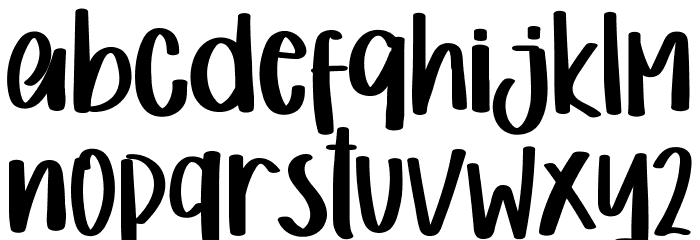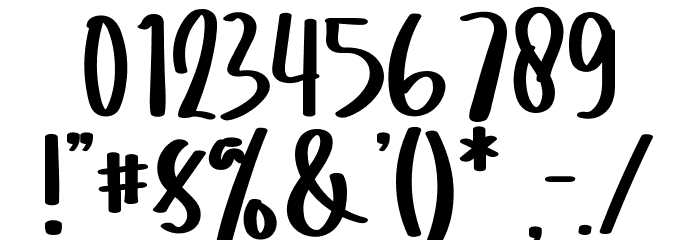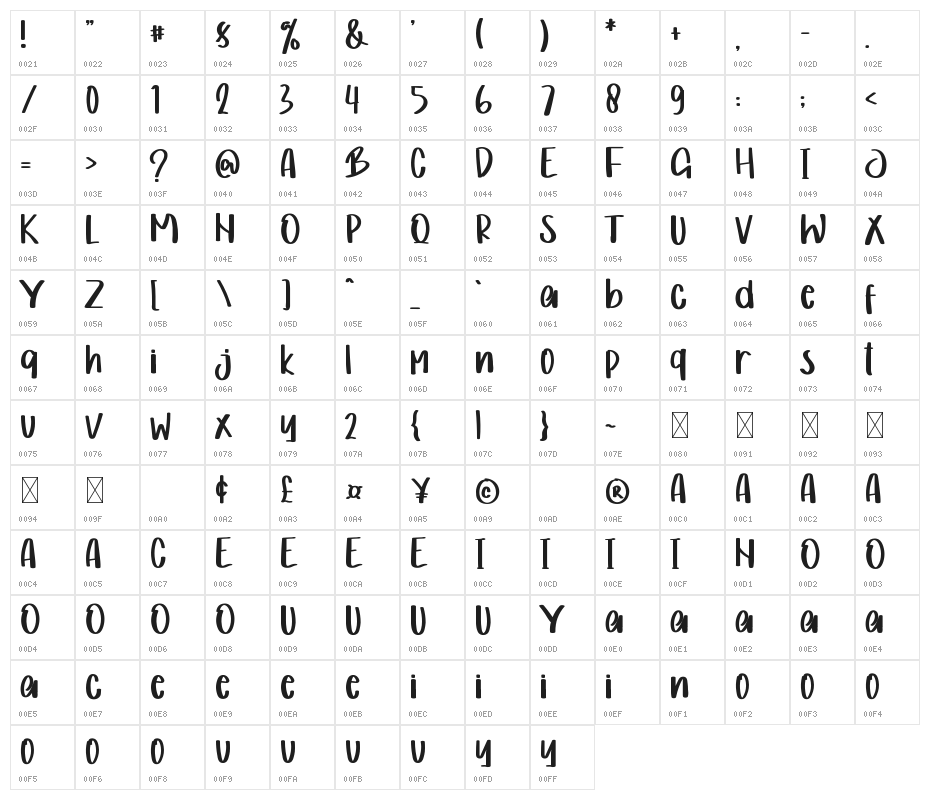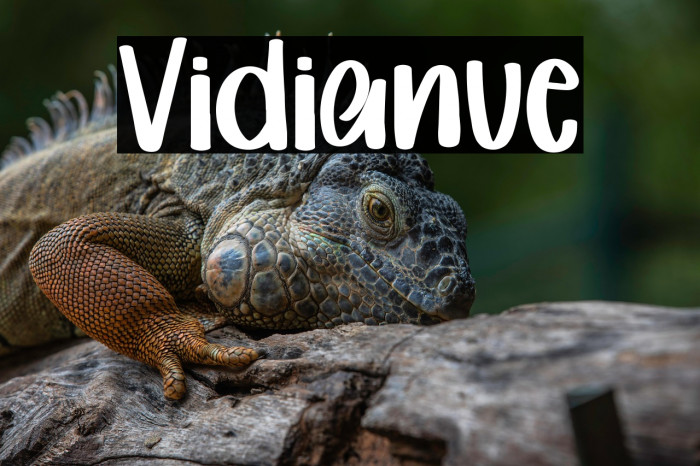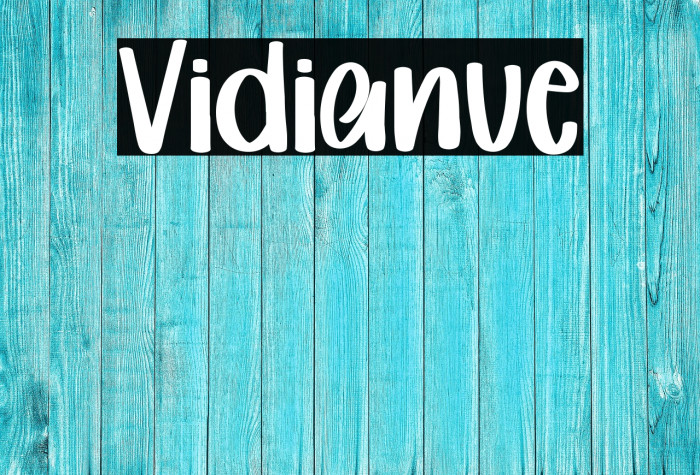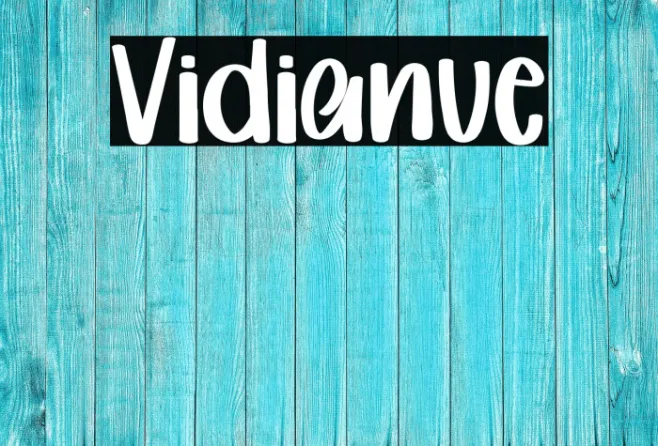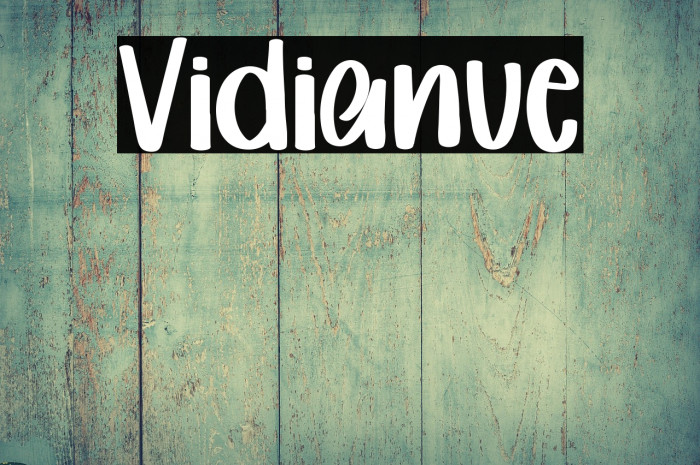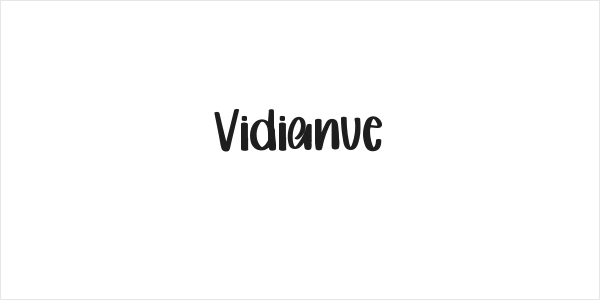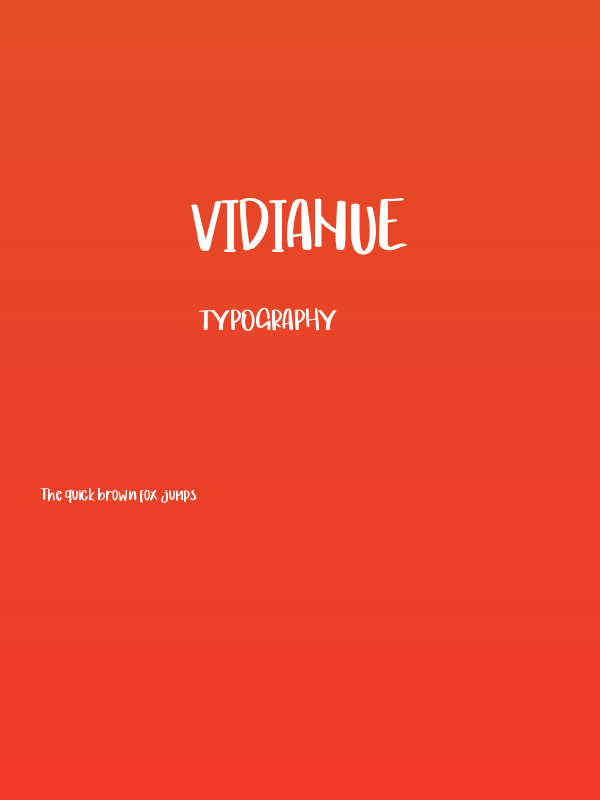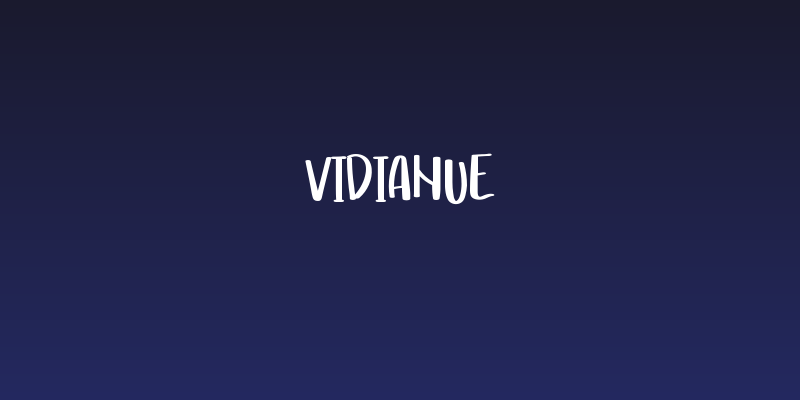
Vidianue Font
This font features a playful and bold handwritten style, characterized by its thick strokes and slightly irregular letterforms. The uppercase and lowercase letters maintain a consistent flow, giving it a casual yet impactful appearance. The numbers and special characters complement the alphabet with the same boldness and style, making it versatile for various uses. Its unique charm lies in the organic feel of the letters, which appear as if they were drawn with a marker. The font's overall look is both modern and approachable, suitable for creative projects that require a personal touch.
A bold, playful handwritten font with thick strokes and an organic feel.
- Proposed Projects: Ideal for greeting cards, posters, social media graphics, and branding materials that aim to convey a friendly and informal tone.